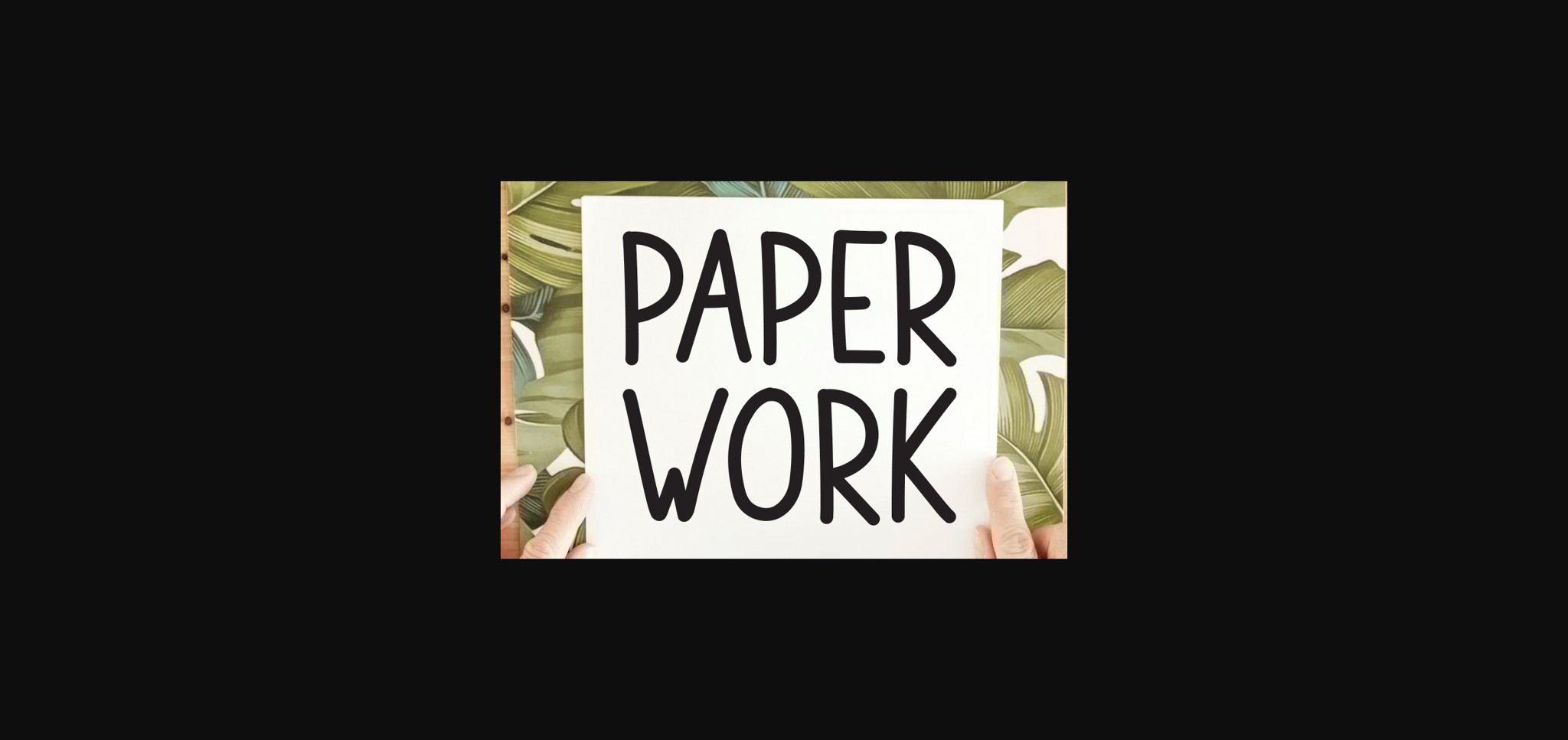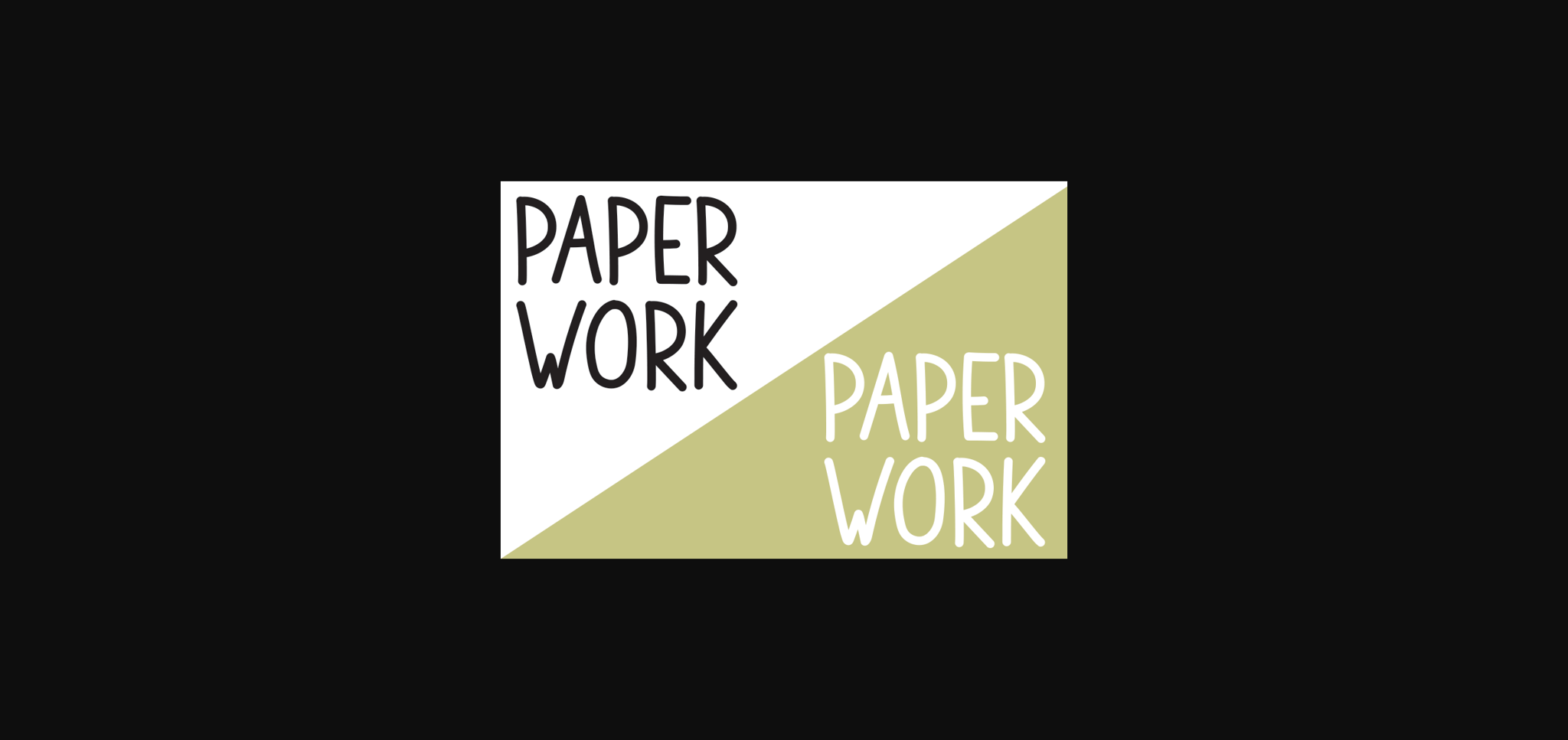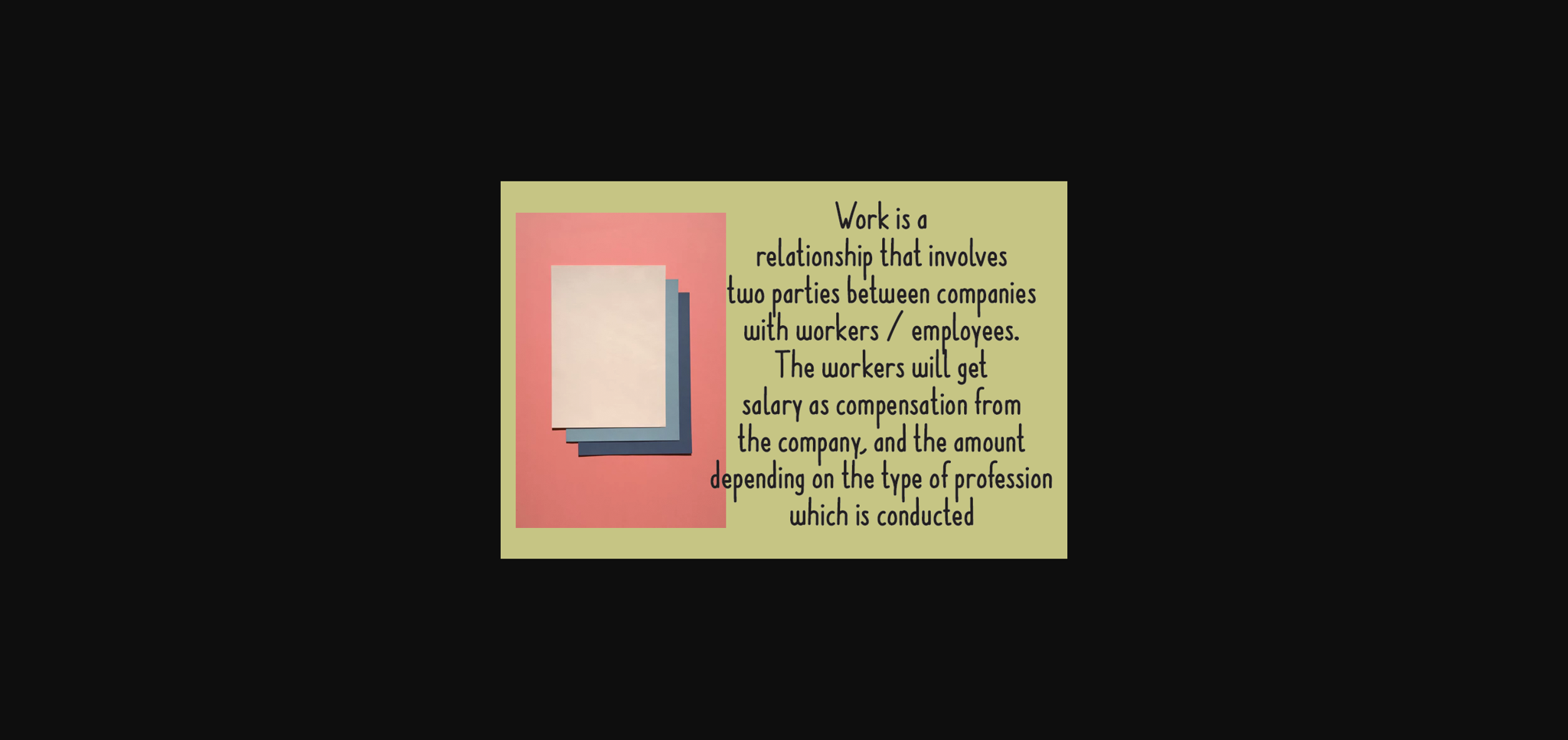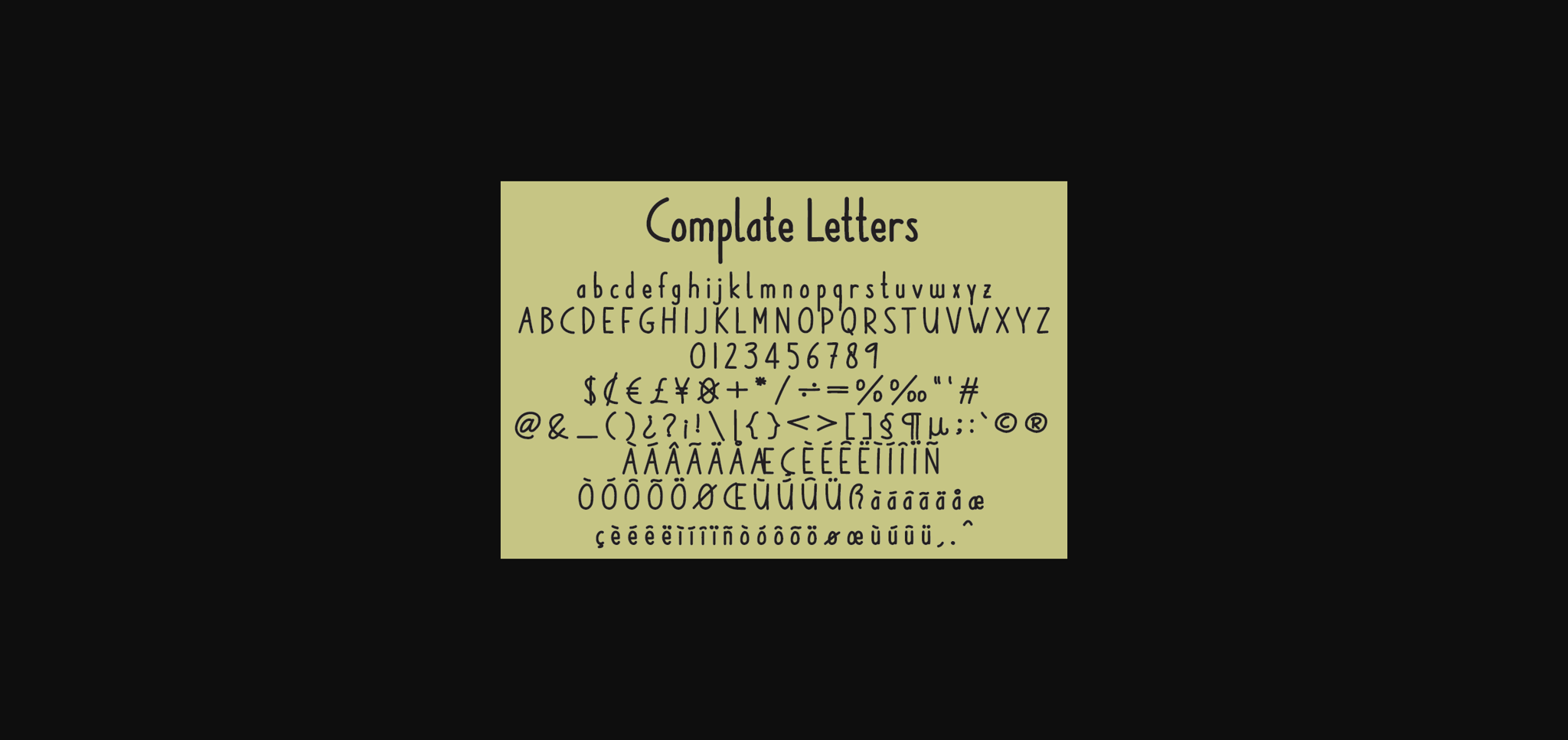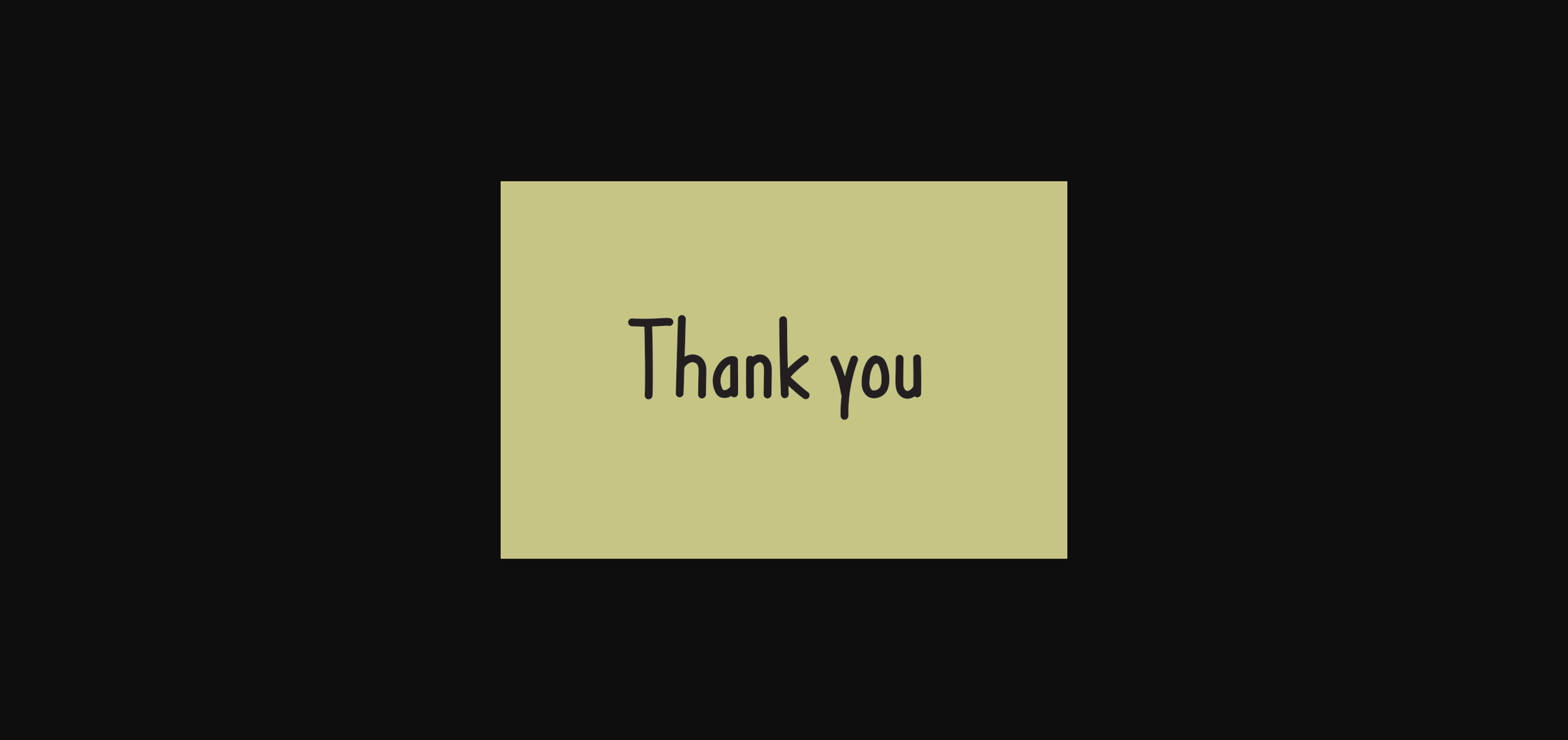
Paper Work Font
About Paper Work Font
Paper Work is a minimal and neat sans serif font. It can easily be matched to an incredibly large set of projects, so add it to your creative ideas and notice how it makes them stand out!